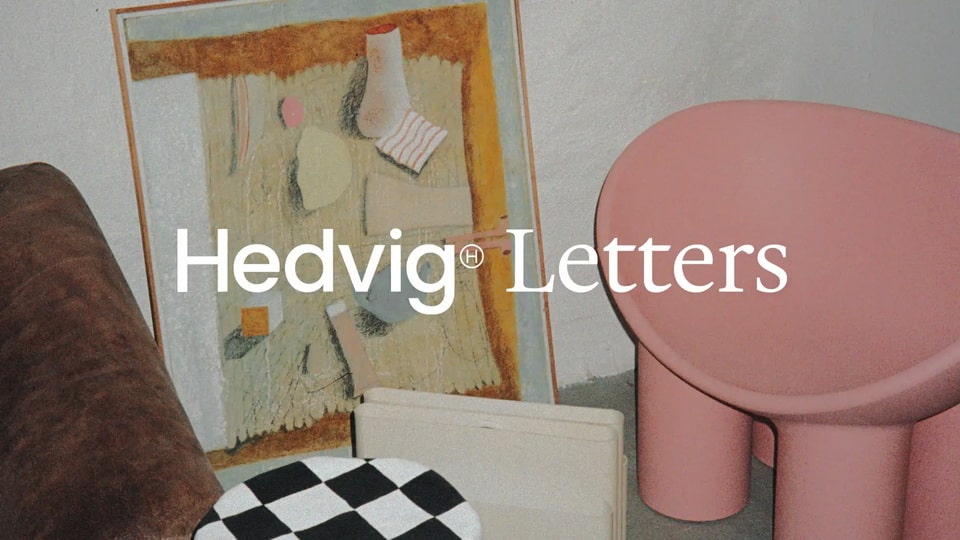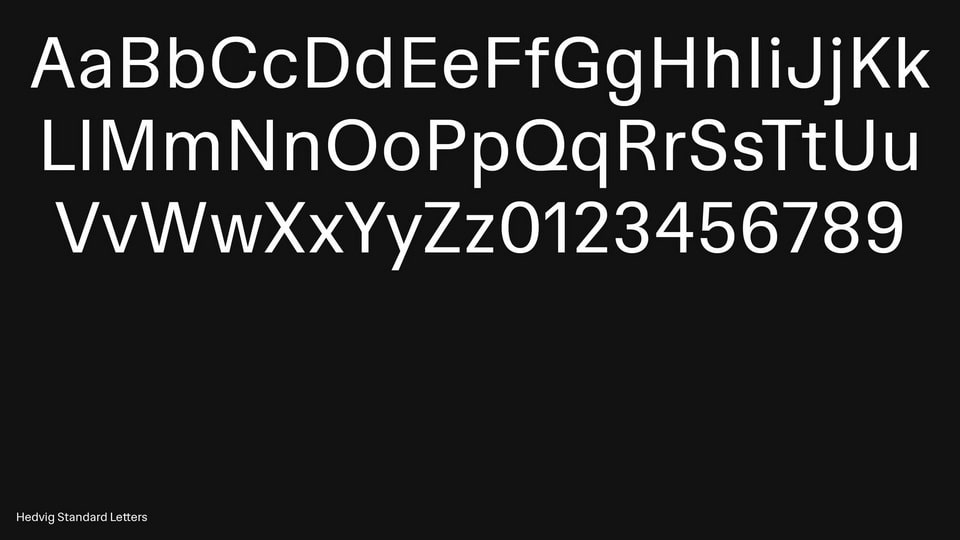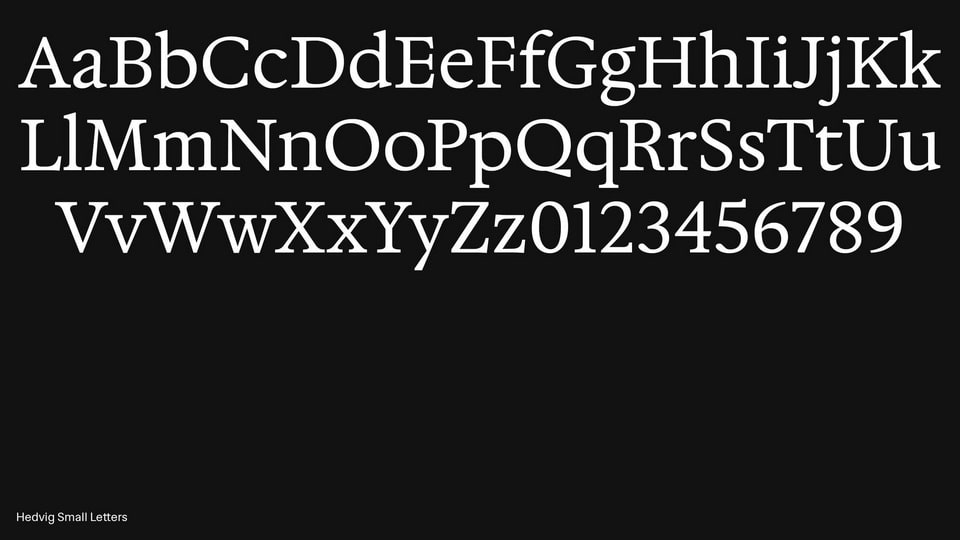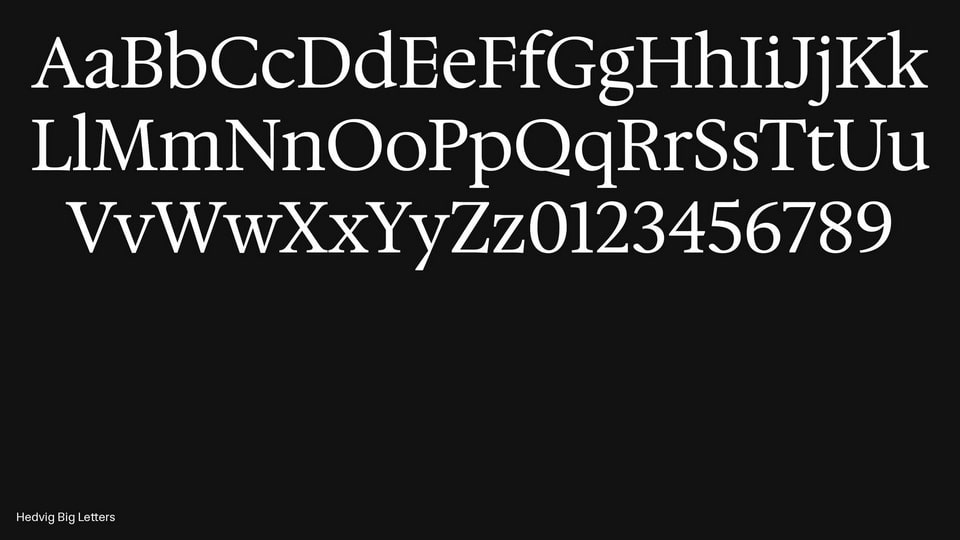
Hedvig is a Scandinavian insurance company providing a predictable insurance experience for the next generation. Kanon Foundry was tasked to create a family of typefaces in collaboration with their in-house design department as a way to improve the visual experience of the brand. The idéa was for the typeface to reflect Hedvig’s brand philosophy; To embrace the mistakes we make as humans.
The result was the typeface-family Hedvig Letters. It consists of three fonts; two serifs, and one sans.
The serifs; Hedvig Letters Big & Small was designed to balance the punchy and honest copy they use, with the responsibility and comfort they provide when they handle whatever trouble you get yourself or your stuff into.
The serif comes in two optical weights, and are named accordingly to where they are meant to be used; Hedvig Letters Big for the big print, and Small for the finer applications.
Hedvig Letters Standard is the sans style that takes the role of the work-horse typeface in Hedvig’s visual toolbox.
The way we approached the concept was to imagine the letters from a “non-type-designer” point of view. We realized that the optical corrections we usually apply to a typeface are a method of fooling the eye into perceiving certain shapes as balanced or aligned, when in reality — it’s not. In other words, we trick the eye into thinking something is perfect when it’s not.
So to embrace the mistakes, or in this case the imperfections — we decided not to apply this kind of corrections, where the letterforms allowed it. And this resulted in a typeface where some letters have a slightly odd, yet characteristic look that effectively communicates Hedvig’s design philosophy.